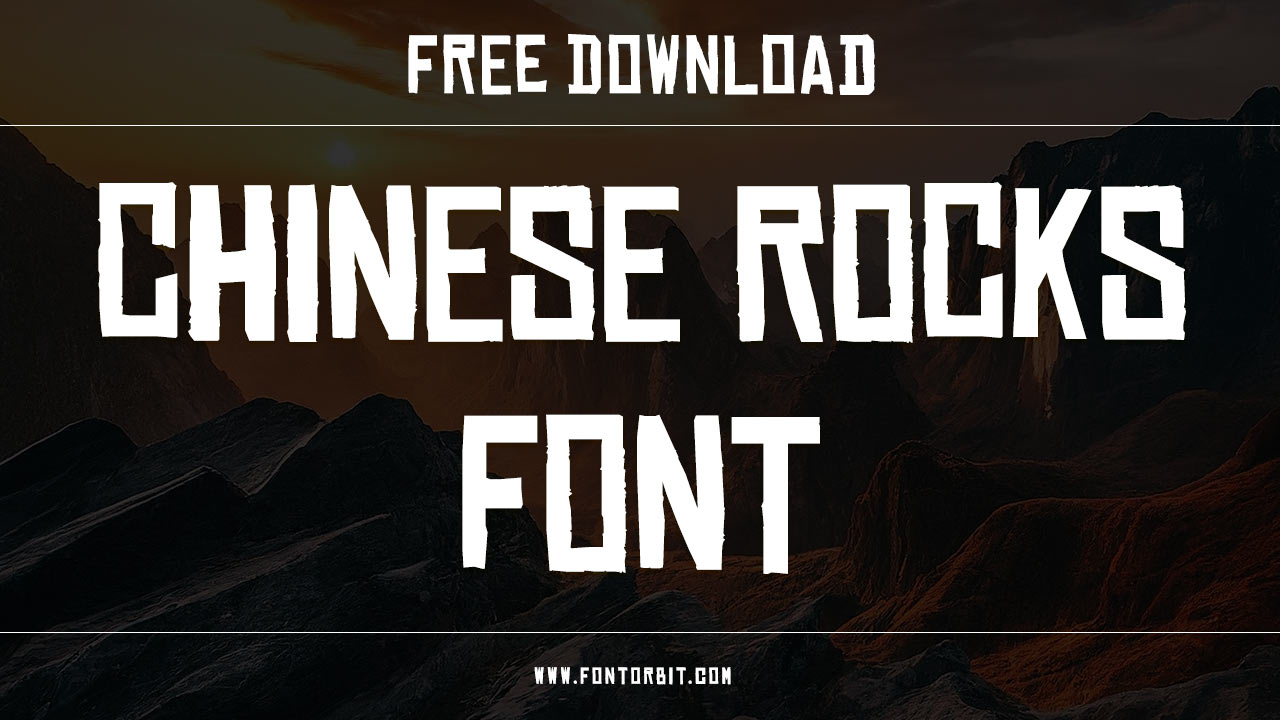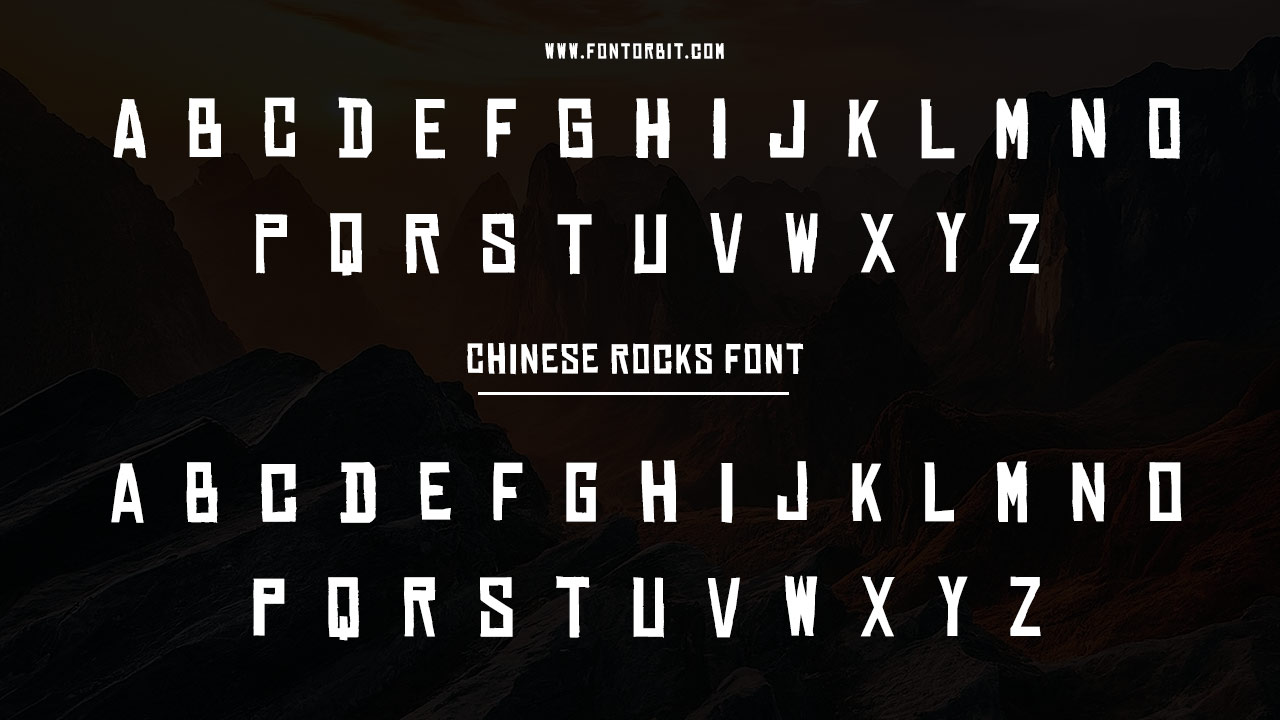
Chinese Rocks Font is a distinctive and versatile typeface designed by Typodermic Fonts, led by Ray Larabie. This font is inspired by the hand-cut rubber-stamp lettering found on imported merchandise containers. Its bold, rugged style lends itself perfectly to a variety of creative projects, from logos and posters to digital and printed materials. The Chinese Rocks Font family includes multiple styles, such as Bold Italic and Regular, making it a perfect font for achieving a raw, handcrafted look.
The Chinese Rocks Font is a decorative typeface known for its sharp corners and textured appearance. It is categorized as a sans-serif font but features a handcrafted, stencil-like aesthetic. The font comes in 3 styles:
- Chinese Rocks Regular
Chinese Rocks Font’s bold, decorative design makes it an excellent choice for projects requiring a rustic or industrial tone. Here are some popular uses:
- Posters and Flyers: Ideal for bold headlines and striking visuals.
- Logos: Perfect for branding projects with an edgy or vintage aesthetic.
- Printed Material: Use it for signs, packaging, or labels to add a raw, handmade feel.
- Digital Media: Enhance your web graphics, social media banners, or game graphics.
- Tattoo and Western Themes: Fits perfectly into designs with stencil, brush, or Gothic elements.
Chinese Rocks Font is a bold, decorative typeface that brings a rugged, handcrafted vibe to your designs. Whether you’re creating logos, posters, or digital content, this font offers versatility and a unique visual impact. Its availability in multiple styles and free licensing for commercial purposes makes it an excellent choice for designers looking for a larger font family with sharp corners and rustic appeal.
Chinese Rocks Font is a versatile decorative typeface perfect for creating bold and impactful designs. It works well in posters, logos, signs, game graphics, and web graphics, offering a rustic, bold effect. The font’s handcrafted appearance makes it ideal for projects that require a vintage, industrial, or artistic vibe. Whether you’re designing for digital media or printed material, this font adds a sharp and unique aesthetic.
Chinese Rocks Font, designed by Typodermic Fonts and Ray Larabie, draws inspiration from the hand-cut rubber stamps used on imported merchandise containers. Its stencil-like texture, sharp corners, and bold lines make it a standout choice for creating rugged and distinctive visuals. The font offers 3 styles (Regular, Bold, and Bold Italic), making it versatile for achieving different text effects. The addition of special characters further enhances its utility for multilingual and creative designs.
You can personalize Chinese Rocks Font by adjusting font color, size, spacing, and other text properties to match the desired design. Pair it with serif fonts, Gothic fonts, or brush fonts to create striking contrasts. Its outline fonts and bold italic options are great for layering text effects. Additionally, combining the font with vibrant colors can make it pop in both web graphics and printed designs.